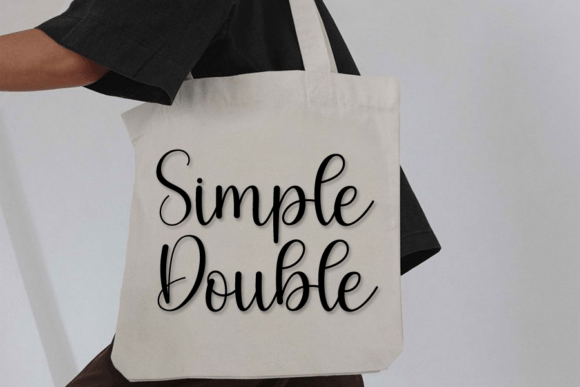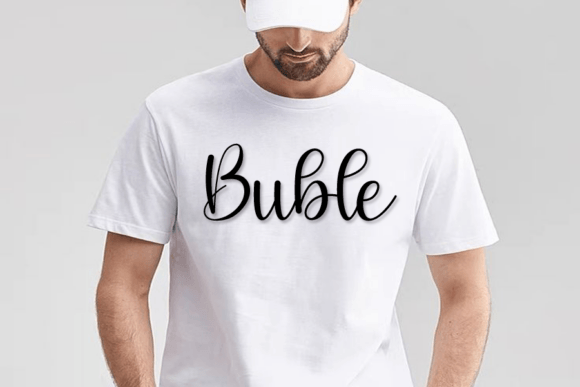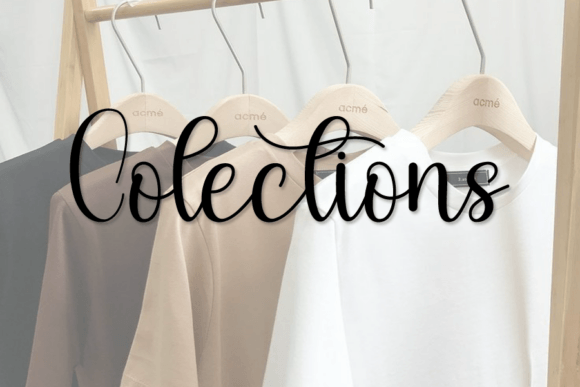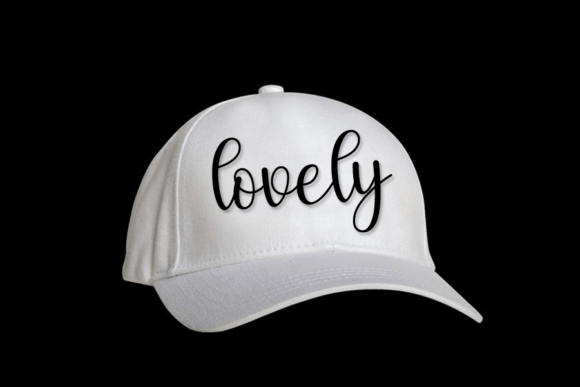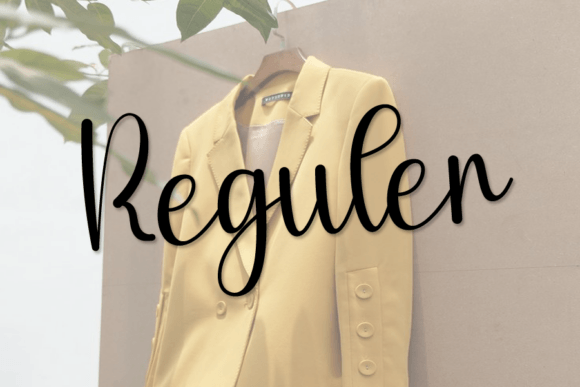
Buliky Font: A Timeless Classic for Creative Design Projects
Are you a designer or crafter looking for a unique and versatile font to elevate your creative projects? Look no further than Buliky Font, a classic and simple handwritten script that’s perfect for a wide range of applications. In this article, we’ll explore the features and benefits of Buliky Font, and show you how to make the most of this amazing resource.
What is Buliky Font?
Buliky Font is a beautifully crafted handwritten script that’s characterized by its random and free style. This font is designed to be both classic and simple, making it an excellent choice for a variety of design projects. Whether you’re working on a logotype, headline font, or corporate identity, Buliky Font is sure to impress.
Key Features of Buliky Font
- Handwritten script: Buliky Font features a beautiful, handwritten script that’s perfect for adding a personal touch to your designs.
- Random and free style: The font’s random and free style gives it a unique and organic feel that’s sure to stand out.
- Classic and simple: Despite its unique style, Buliky Font is also classic and simple, making it easy to read and versatile.
- Wide range of applications: Buliky Font is suitable for a wide range of design projects, including logotype, headline font, corporate identity, brand identity, apparel industry, poster, music, movie, game, magazine, book, comic, cartoon, YouTube, Instagram, website, and more.
Benefits of Using Buliky Font
So why choose Buliky Font for your design projects? Here are just a few benefits of using this amazing font:
- Unique and eye-catching: Buliky Font is sure to grab attention and add a touch of personality to your designs.
- Versatile: The font’s classic and simple style makes it easy to use in a wide range of design projects.
- Easy to read: Despite its unique style, Buliky Font is easy to read and understand, making it perfect for body text and headlines.
- Customizable: Buliky Font can be customized to fit your brand’s style and personality, making it easy to integrate into your design projects.
Using Buliky Font in Your Design Projects
So how can you use Buliky Font in your design projects? Here are a few ideas to get you started:
- Logotype: Use Buliky Font to create a unique and memorable logotype that reflects your brand’s personality.
- Headline font: Use Buliky Font as a headline font to add a touch of personality and style to your designs.
- Corporate identity: Use Buliky Font to create a consistent and professional corporate identity that reflects your brand’s values and personality.
- Apparel industry: Use Buliky Font to create eye-catching and stylish apparel designs that are sure to stand out.
Tips and Tricks for Getting the Most Out of Buliky Font
Here are a few tips and tricks for getting the most out of Buliky Font:
- Experiment with different colors: Try out different colors and color combinations to find the perfect look for your design.
- Play with font sizes: Experiment with different font sizes to create visual interest and hierarchy in your design.
- Add texture and effects: Consider adding texture and effects to your design to give it a more organic and handmade feel.
- Use it with other fonts: Try pairing Buliky Font with other fonts to create a unique and interesting typography combination.
Buliky Font is a timeless classic that’s perfect for designers and crafters looking for a unique and versatile font. With its handwritten script, random and free style, and classic and simple design, Buliky Font is sure to elevate your creative projects and add a touch of personality to your designs. Whether you’re working on a logotype, headline font, corporate identity, or apparel design, Buliky Font is an excellent choice. So why wait? Download Buliky Font today and start creating amazing designs!